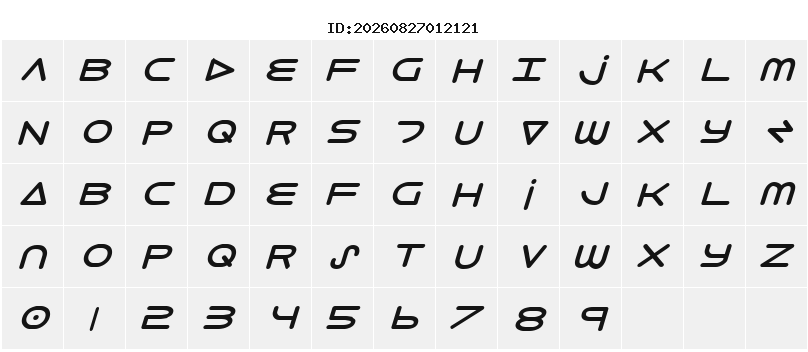
8th Element ExtraBold Italic Preview
• Font Name: 8th Element ExtraBold Italic
• Font Style: ExtraBold Italic
• Full Font Name: 8th Element ExtraBold Italic
About 8th Element ExtraBold Italic.ttf
8th Element ExtraBold Italic.ttf is a modern, elegant sans-serif font designed for ultimate readability and visual harmony. Perfect for branding, headlines, web design, and print materials.